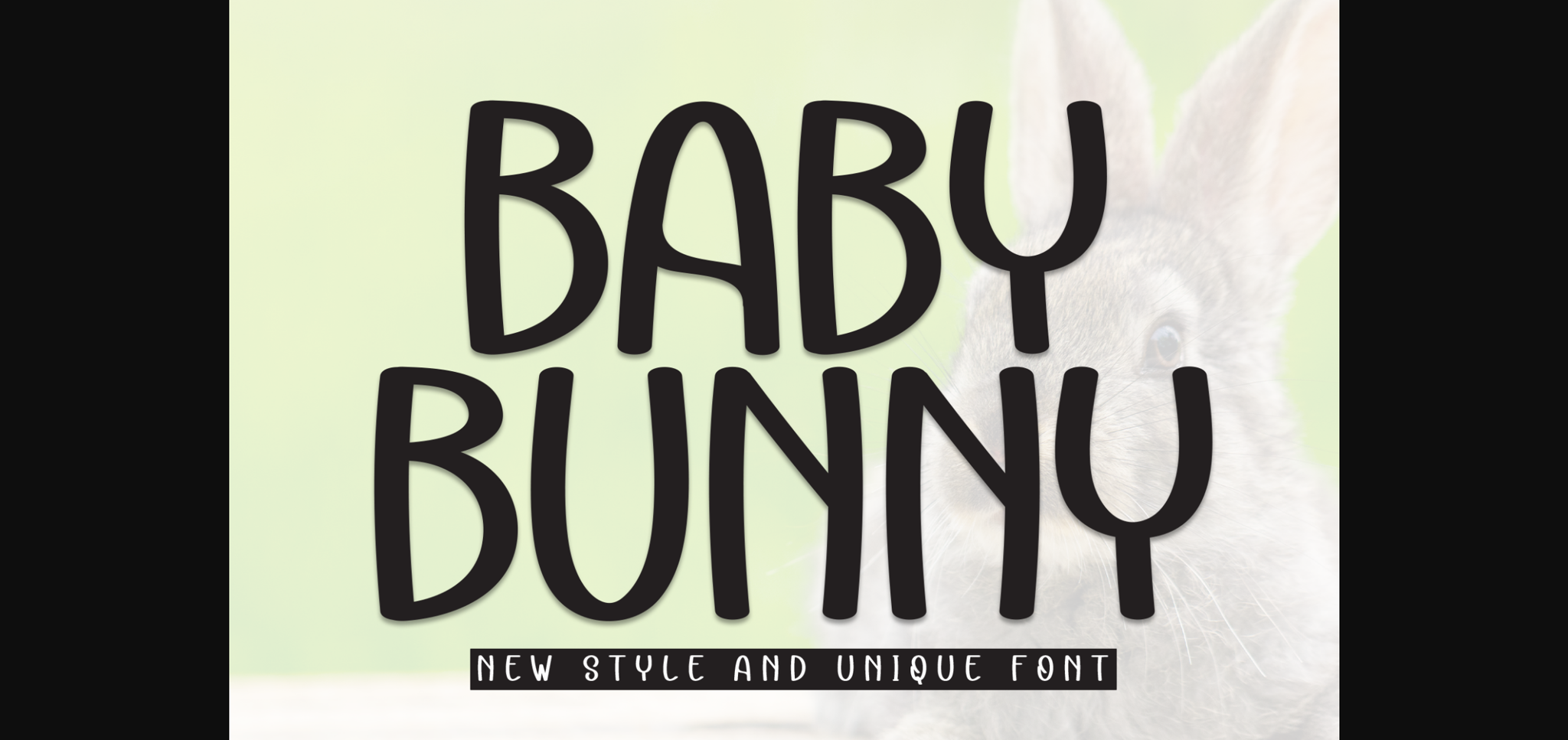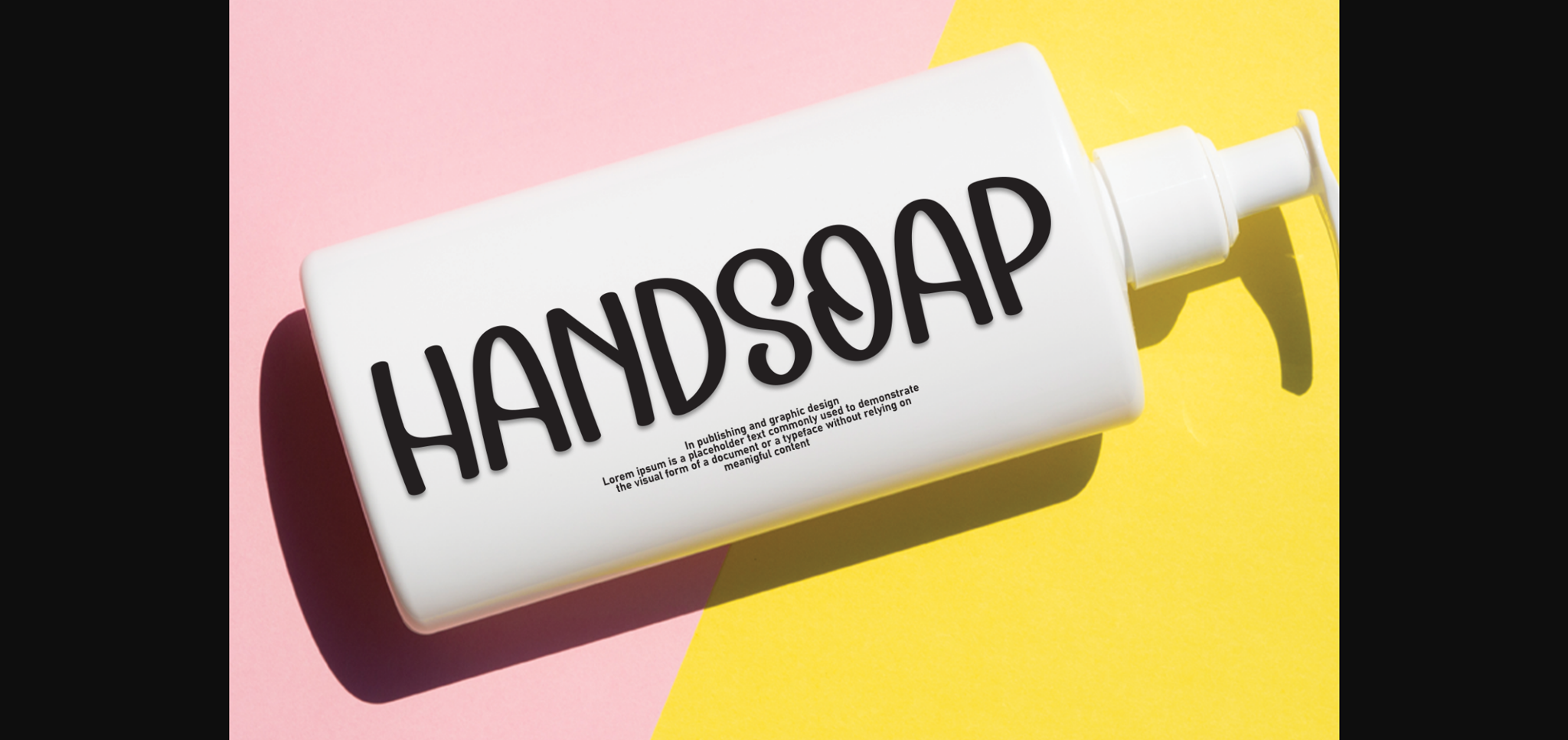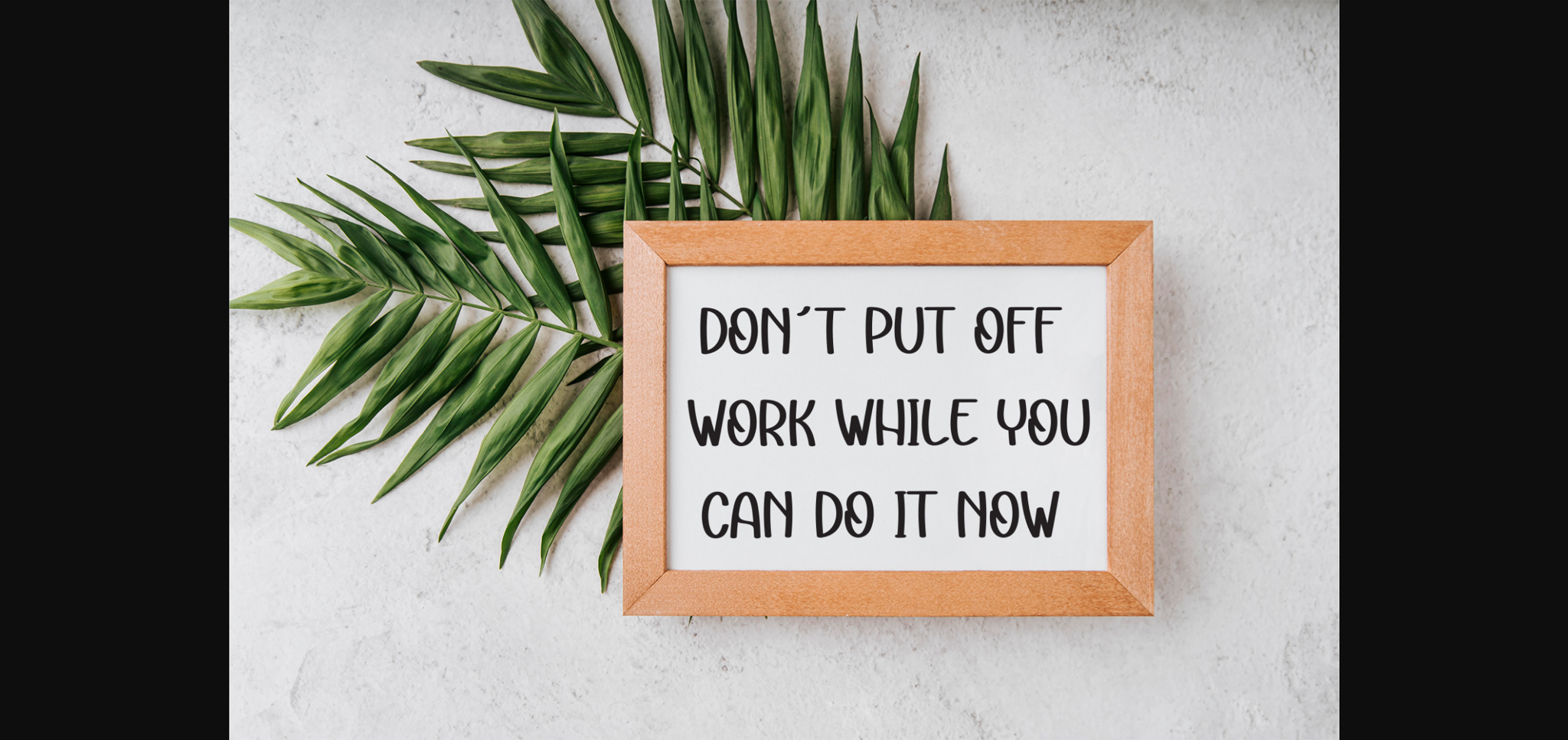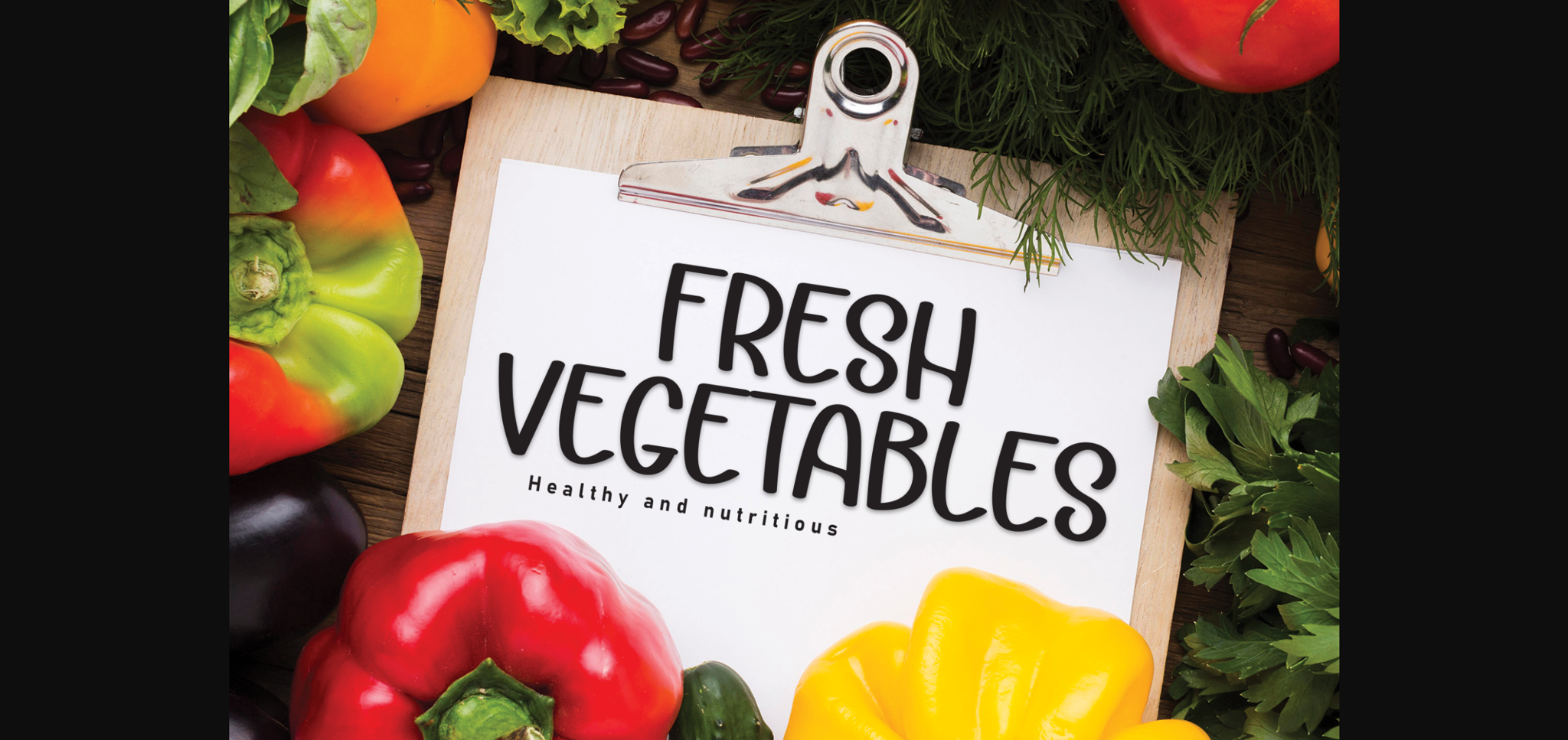
About Baby Bunny Font
Baby Bunny is a sweet and friendly sans-serif font. Cute and versatile, this font is ideal for writing wedding invitations, cards, or any other design that might need a fun touch!